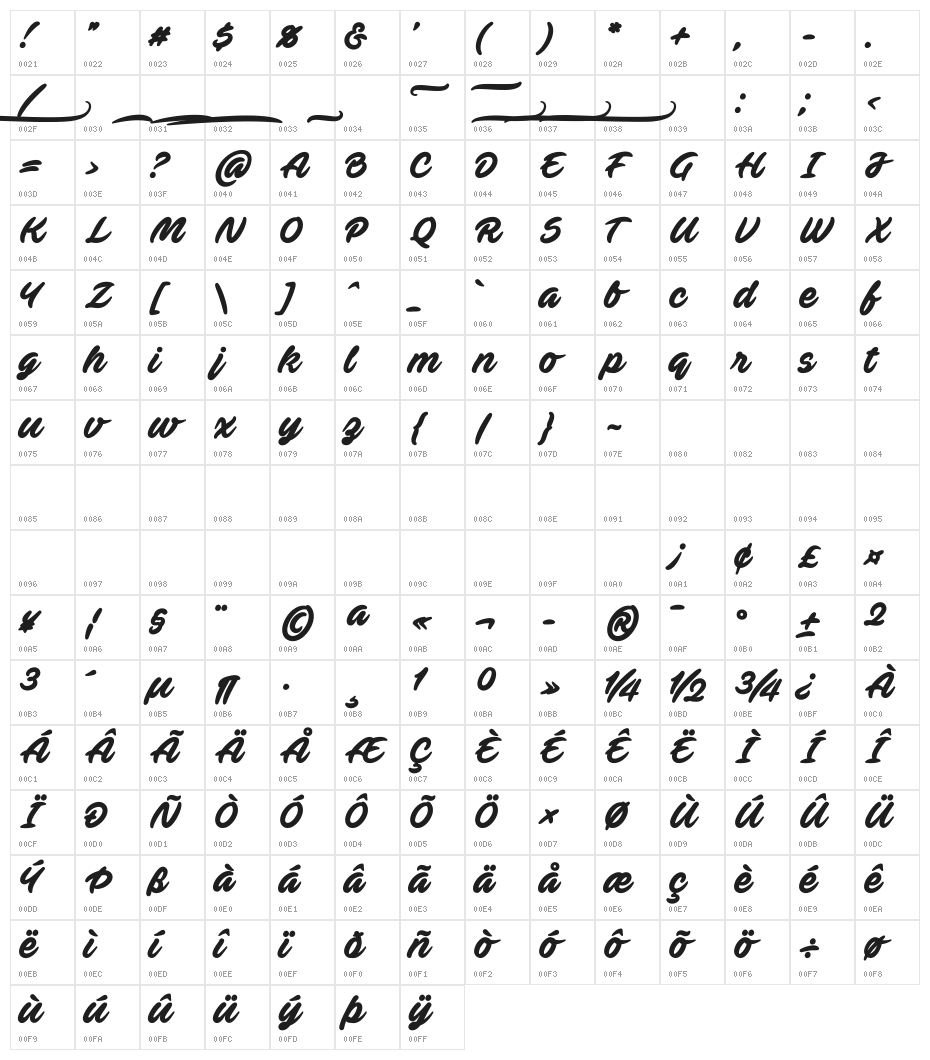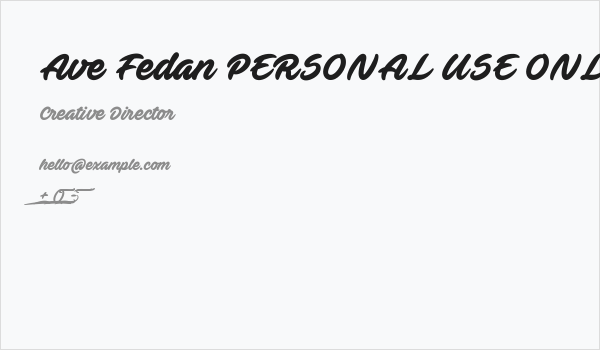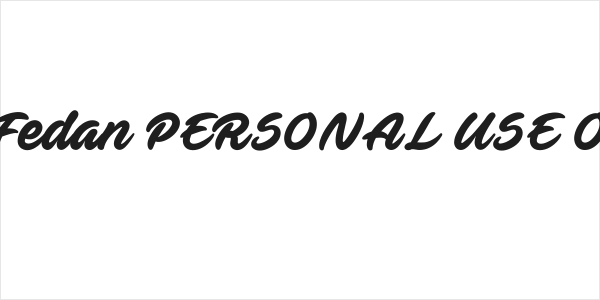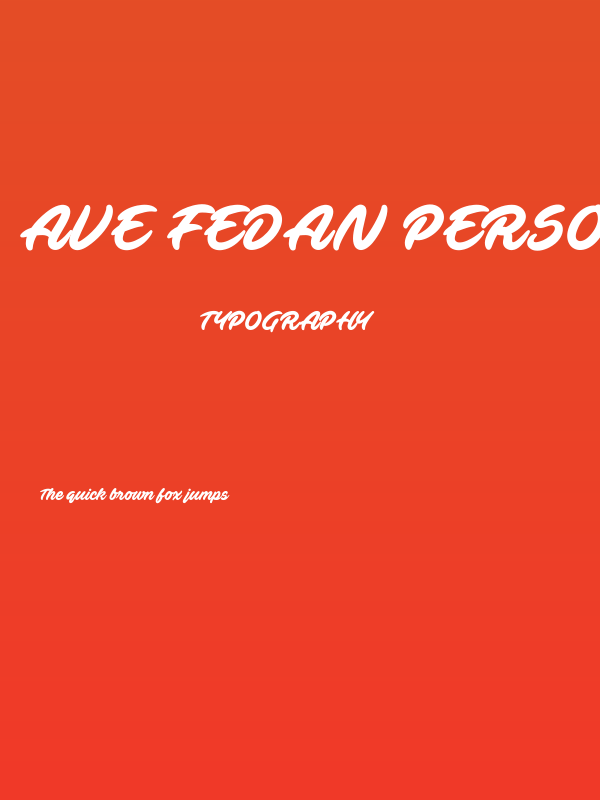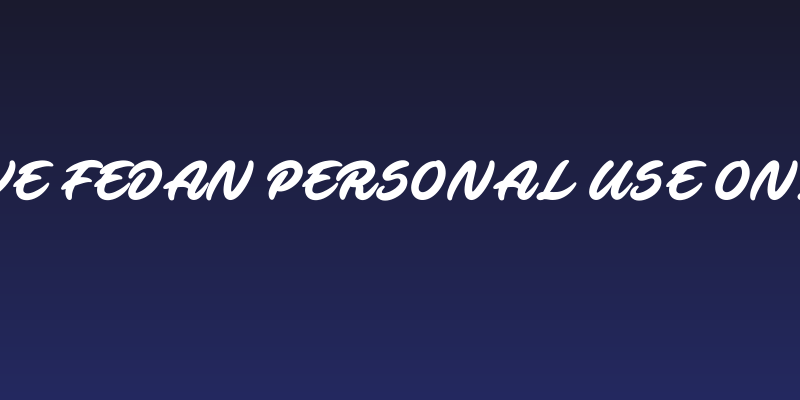
Ave Fedan PERSONAL USE ONLY Font
Ave Fedan PERSONAL USE ONLY Description
This font features a bold, cursive style with smooth, flowing lines that create a sense of elegance and movement. The characters are closely connected, giving it a handwritten appearance. The uppercase letters are slightly larger and more pronounced, while the lowercase letters maintain a consistent flow. The numbers and special characters are designed to match the overall style, with a playful yet sophisticated look. This font is ideal for projects that require a personal touch or a sense of luxury.
| Proposed Projects | Ideal for wedding invitations, branding, logos, and greeting cards. |